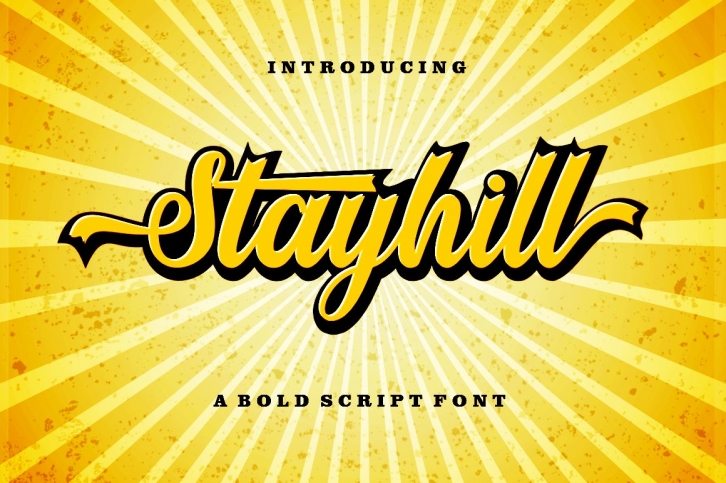
Stayhill Script Inspired by Retro style and combination with Handwriting style. Stayhill has many alternative swash and features like stylistic alternatice, stylistic set, ligature and swash so you can mix and match as you wish.
Stayhill Script comes with open type features such as alternative styles, style sets & great features for logos, posters, badges, book covers, t-shirt designs, handwritten quotes, product packaging, headers, posters, merchandise, social media & greeting cards.